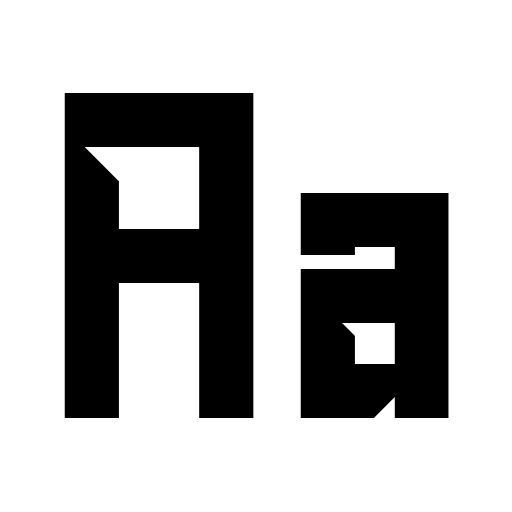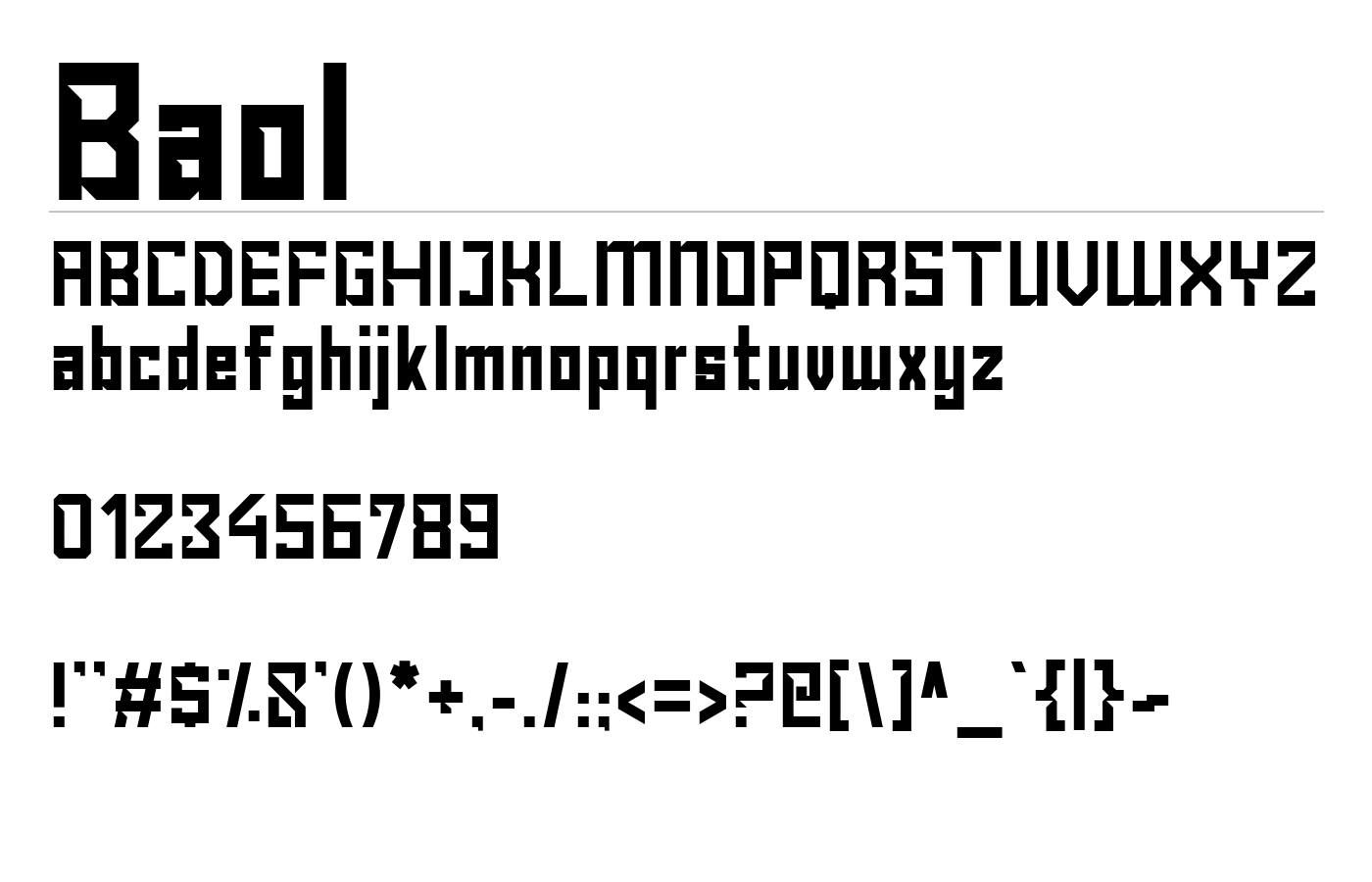
Baol is a bold, condensed sans serif font with a distinctive geometric and angular design that gives it a strong, industrial character. Its sharp, blocky shapes and uniform stroke weight create a modern, edgy feel, making it ideal for impactful headlines, logos, and branding that demand attention and a tech-inspired vibe. This font works well in creative projects where a robust, futuristic style is desired.
Baol Font